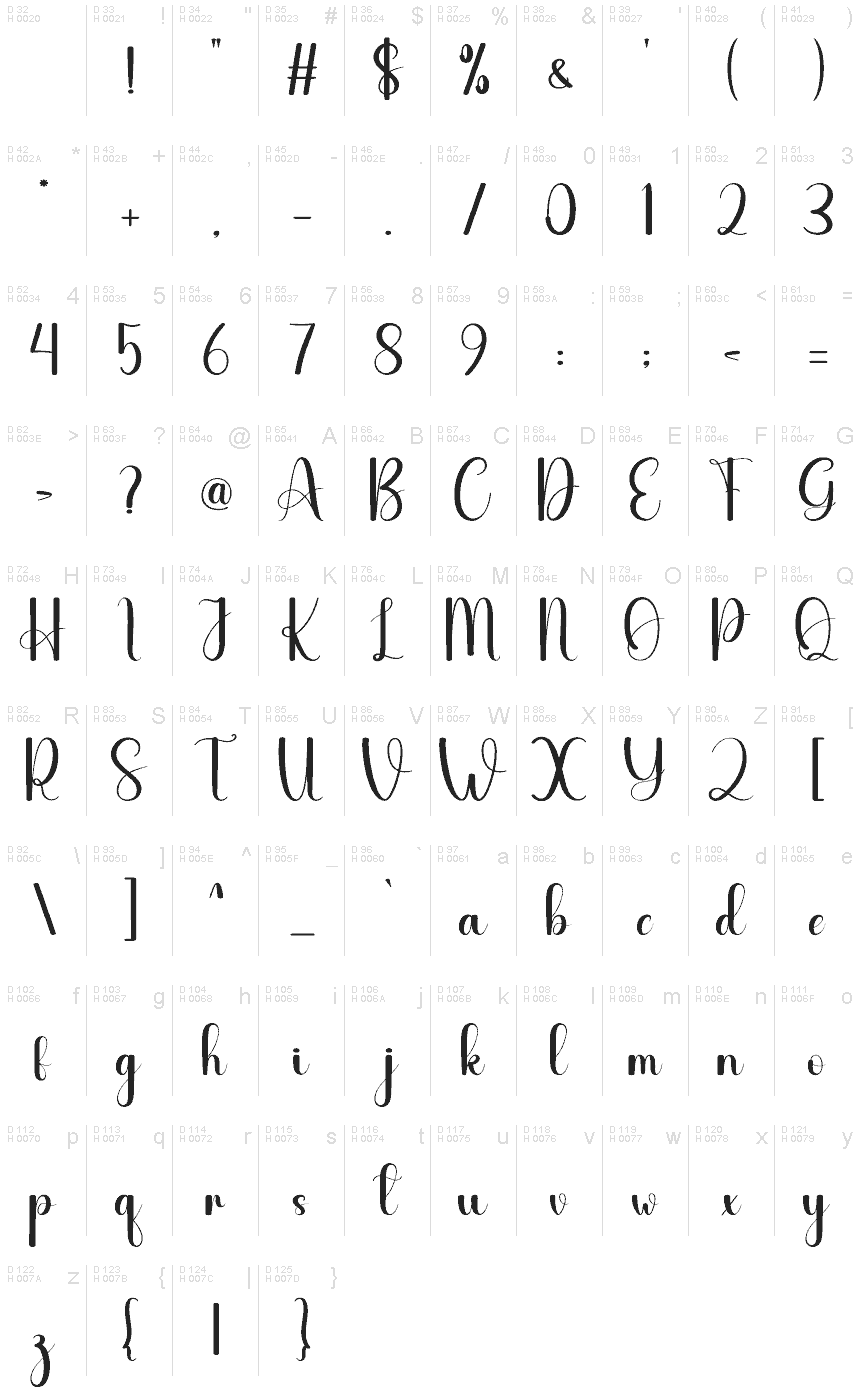
Chart
Chart font designed by Andi Moz is a free calligraphy font for recreating an elegant and flowing script. Expressive and sophisticated, the typeface gives off a graceful and eye-pleasing impression that is a result of its thin lines, varying stroke widths, and loops.